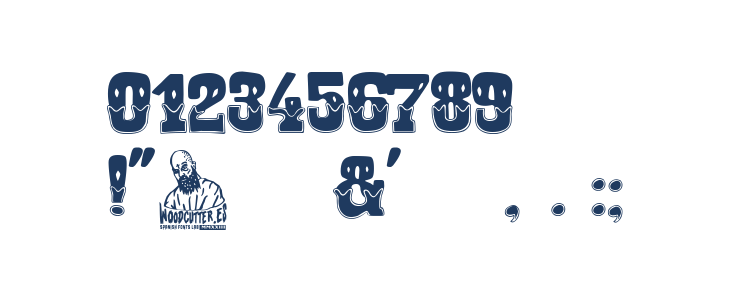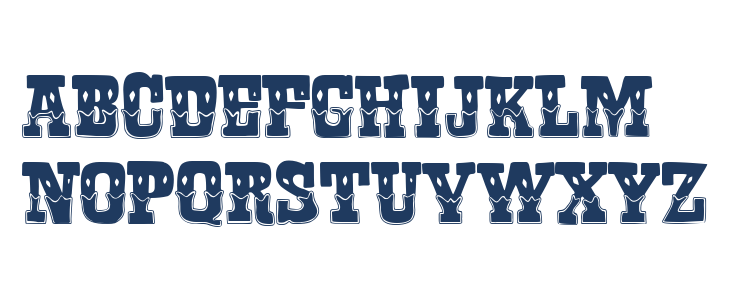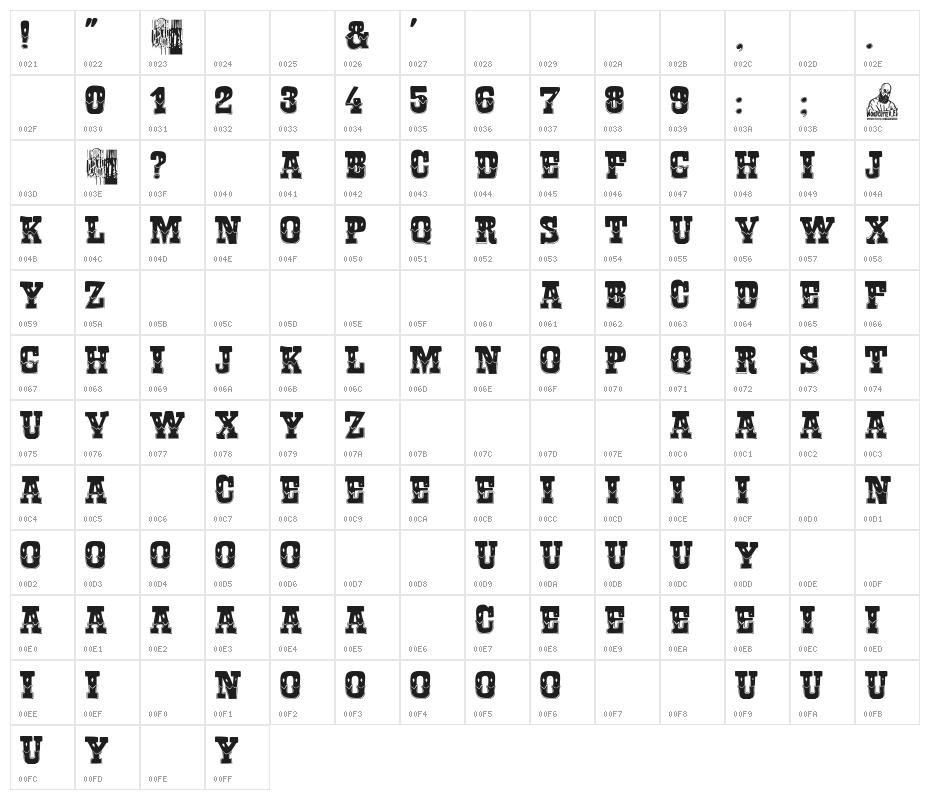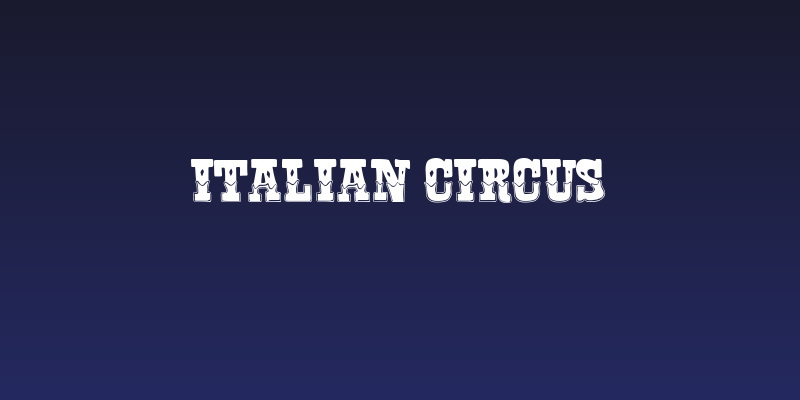
Italian Circus Font
Italian Circus Description
A bold, decorative display typeface with heavy slab serifs, high contrast between thick and thin strokes, and ornate, playful detailing reminiscent of vintage circus posters.
| Overall Style | Vintage, Decorative |
| Use Case | Headlines, Posters, Logos |
| Proposed Projects | Circus posters, event flyers, signage, branding for entertainment venues, themed invitations. |